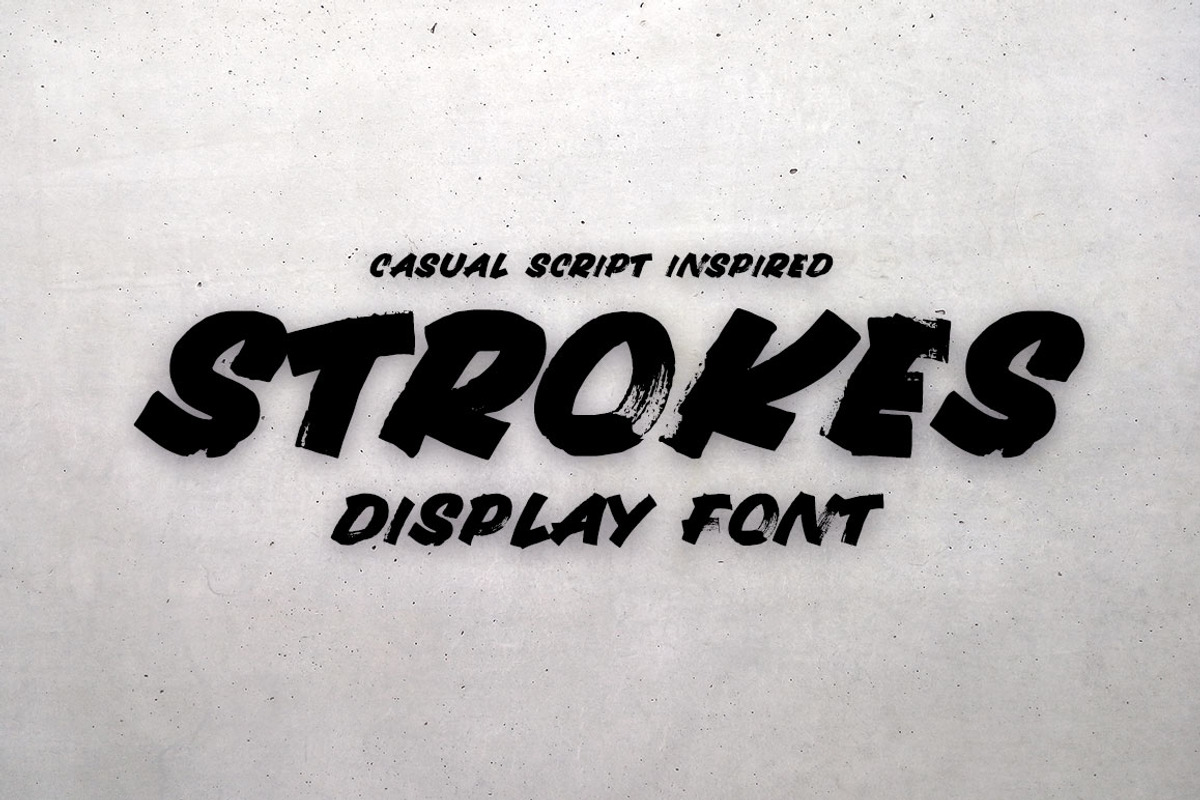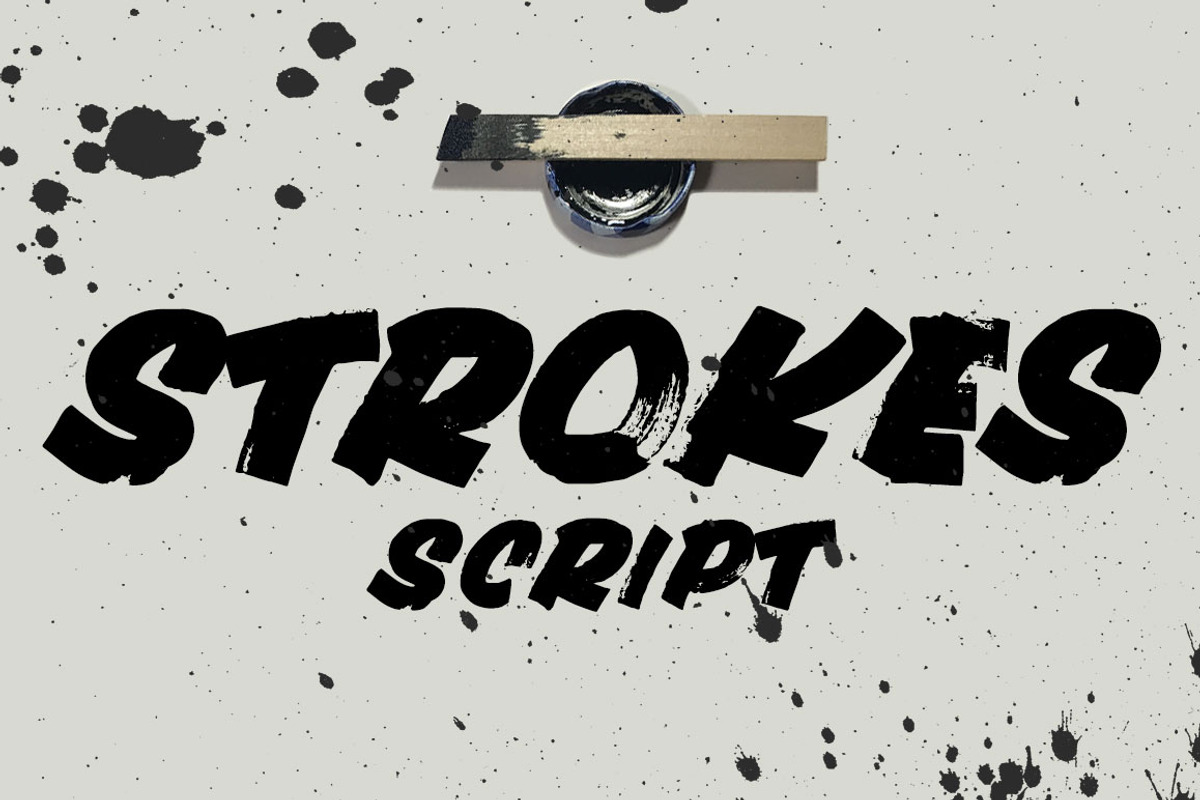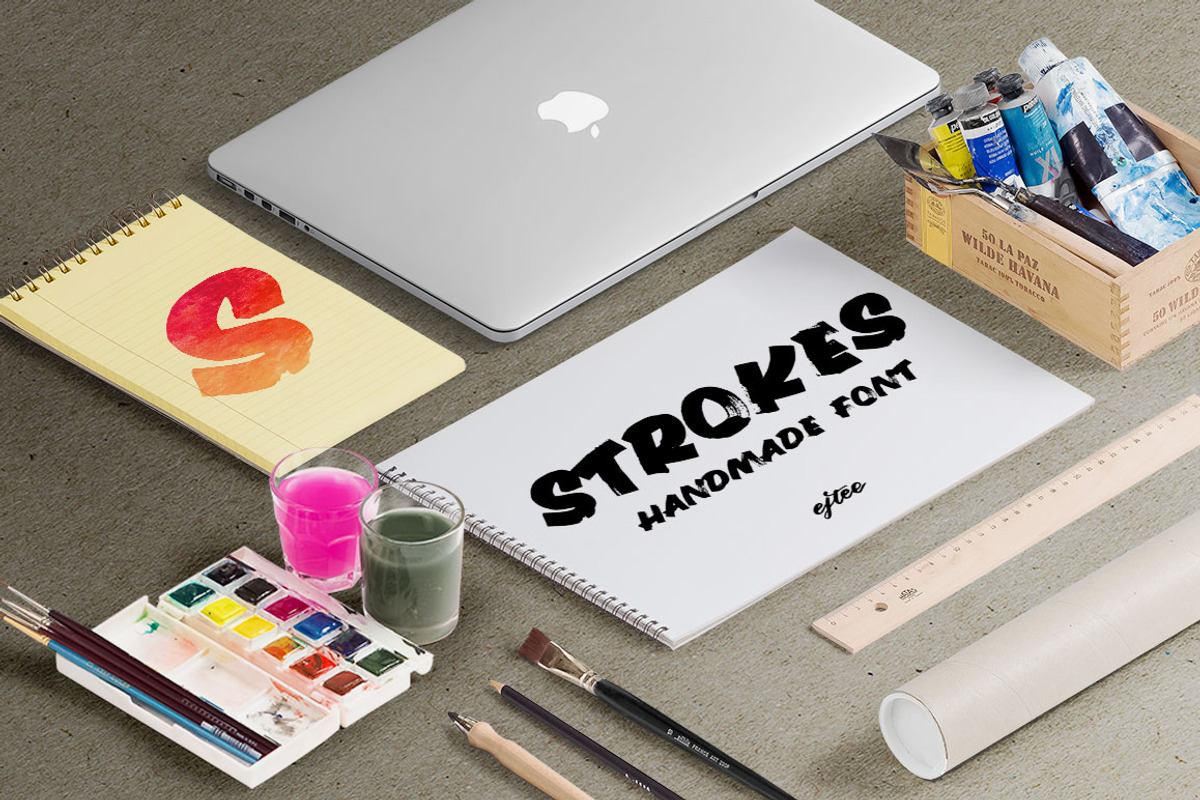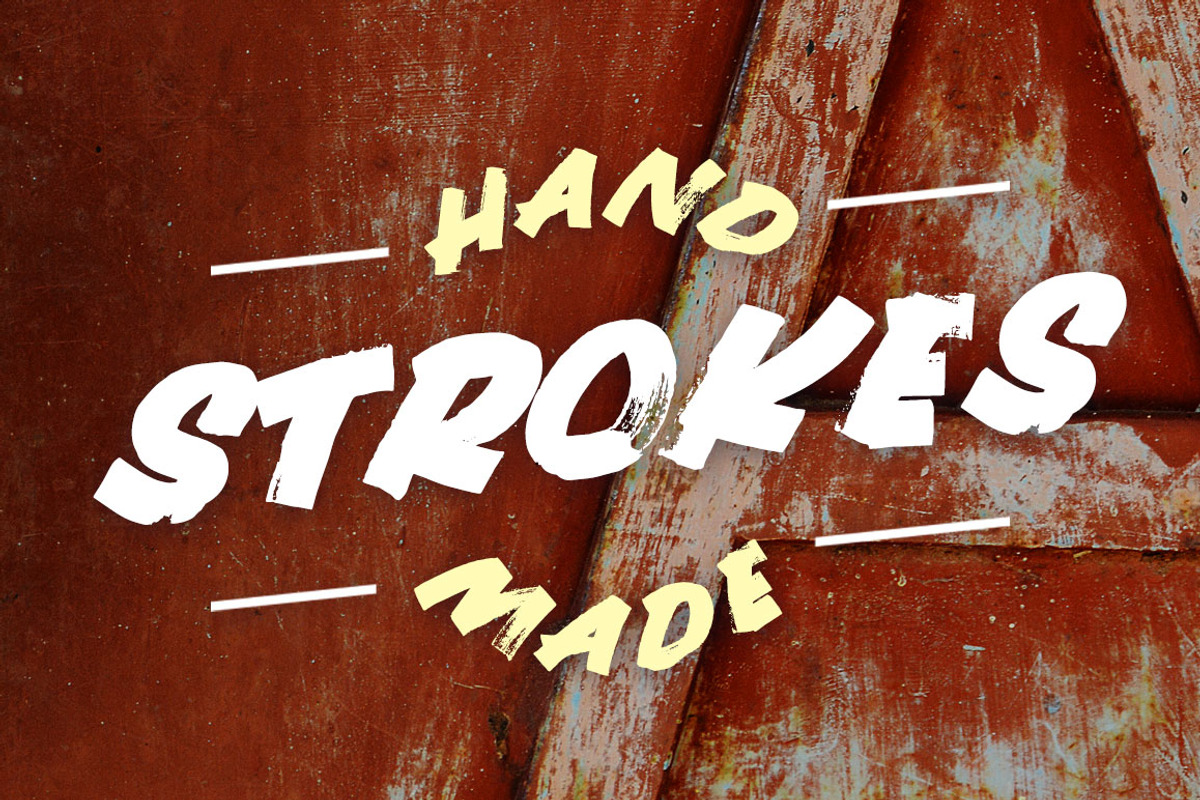
Strokes By Ejtee
Strokes By Ejtee by EJTee, a Script Font by Lettering Shop by EJ is a font selected for branding, posters, packaging, typography.
Why Strokes By Ejtee is worth a look
Strokes By Ejtee by EJTee, a Script Font by Lettering Shop by EJ fits naturally into Branding, posters, packaging, typography.